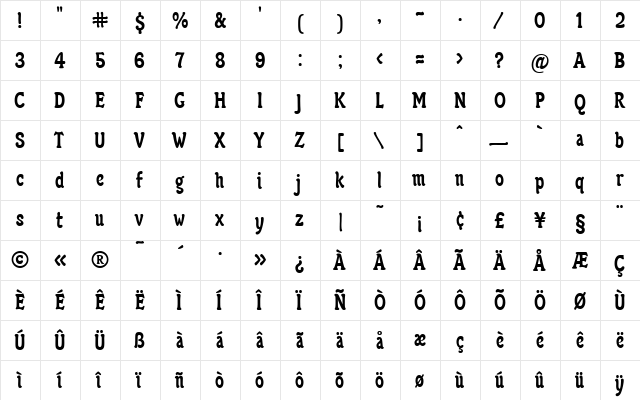
TLTheatreAntoine Medium Font Preview
TLTheatreAntoine Medium
Design Context for TLTheatreAntoine Typeface
TLTheatreAntoine takes a measured approach to typography — its balanced proportions and neutral character make it a reliable workhorse for both digital and print work.